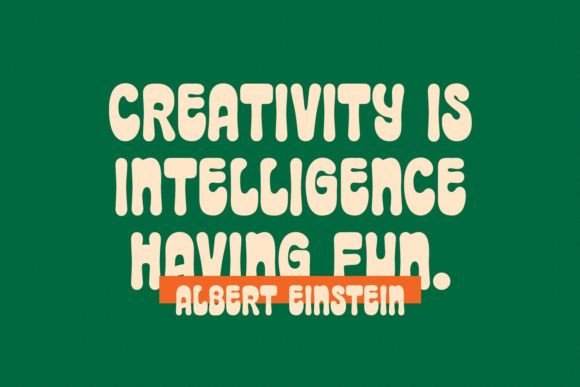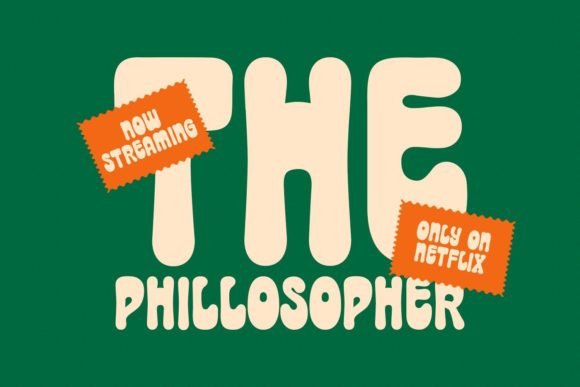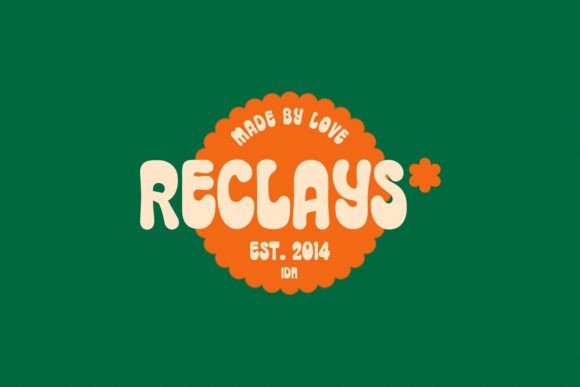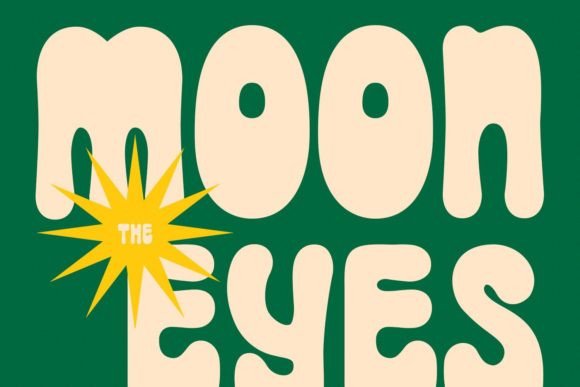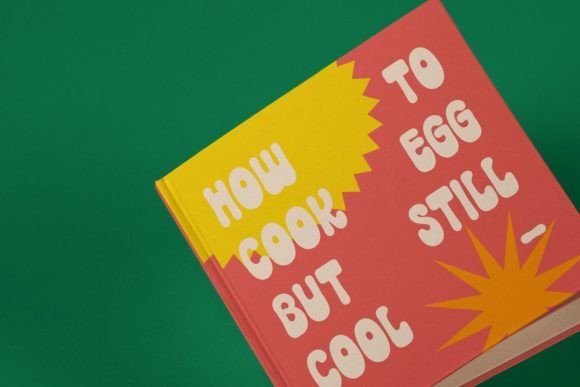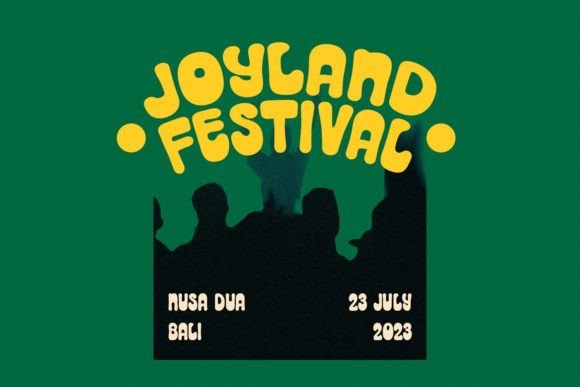
Introduction to Mooschak Font
You’re sitting in front of your computer, staring at a blank canvas, waiting for the perfect spark to ignite your next creative project. The cursor blinks, and your mind starts racing with ideas. Suddenly, you stumble upon a font that changes everything – the Mooschak Font. This bouncy and fat handwritten display font is a game-changer for designers like you, offering a unique blend of bold contrast strokes and playful characters.
Imagine having a design resource that can elevate your social media graphics, movie titles, book covers, and even long-form texts to the next level. The Mooschak Font is perfect for adding a touch of whimsy and personality to your work, making it stand out in a crowded digital landscape. And the best part? You can use it for free, with a transparent background that allows for seamless integration with your existing design elements.
Whether you’re a seasoned designer or just starting out, the Mooschak Font is a high-quality addition to your toolkit. Its versatility and charm make it an ideal choice for a wide range of creative projects, from logos to social media posts. So why settle for ordinary when you can have extraordinary with the Mooschak Font?
Key Features of Mooschak Font
- High-quality font design suitable for creative projects and professional applications
- Designed with a unique and playful style, perfect for adding a touch of whimsy to any design project
Honest Review: Mooschak Font
As a designer, I’m always on the lookout for high-quality design resources that can elevate my creative projects. Recently, I stumbled upon the Mooschak Font, and I’m excited to share my honest review with you.
- ✨ Unique and quirky design style that’s perfect for adding a touch of whimsy to your projects.
- ✨ High-quality vector graphics that can be scaled up or down without losing any detail.
- ⚠️ Limited character set, which may not be suitable for projects requiring a wide range of characters.
- ⚠️ May not be suitable for professional or corporate projects due to its playful and quirky nature.
Overall, I’m impressed with the Mooschak Font’s unique design style and high-quality graphics. While it may have some limitations, it’s a great resource for designers working on creative projects, and the free download option makes it an attractive choice.
Tips for Getting the Most Out of Mooschak Font
To get the most out of the Mooschak Font, be sure to experiment with different font sizes, colors, and combinations with other design elements.
The Mooschak Font is a great choice for any design project that requires a high-quality, creative font. Some common use cases include:
- Wedding invitations and event materials
Yes, the Mooschak Font is a high-quality design resource that’s carefully crafted to provide a unique and stylish look for your creative projects. The font features a wide range of glyphs, including Latin and Cyrillic characters, making it suitable for use in various languages. Its high-quality design ensures that it will display consistently across different devices and screen resolutions.